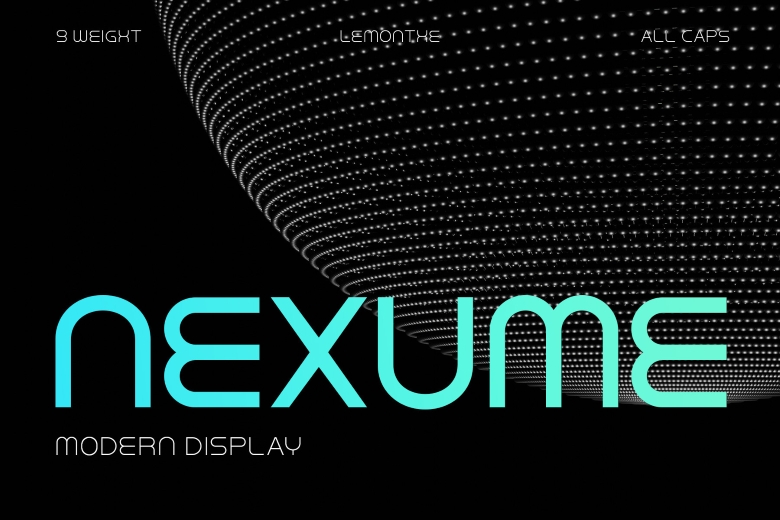
Nexume Font Family
Nexume Font
Nexume is a new display font which has futuristic characteristics. This font is very simple with small curves on its edges; it is suitable for graphic design logo design, branding, media, headlines posters and anything in between. Nexume covers a standard assortment of 9 font styles’ sizes with various weight, which allows for the majority of projects.
Nexume Display Font Family